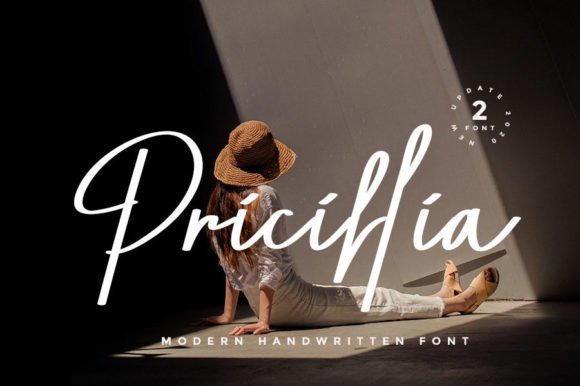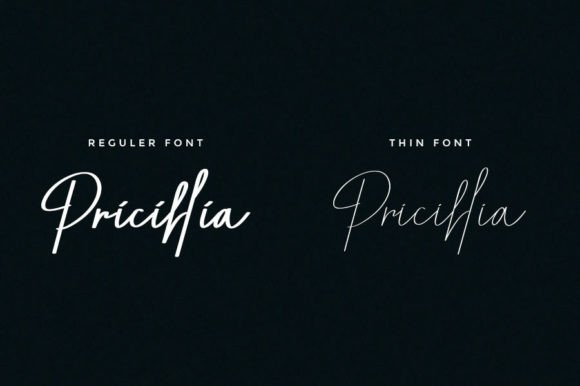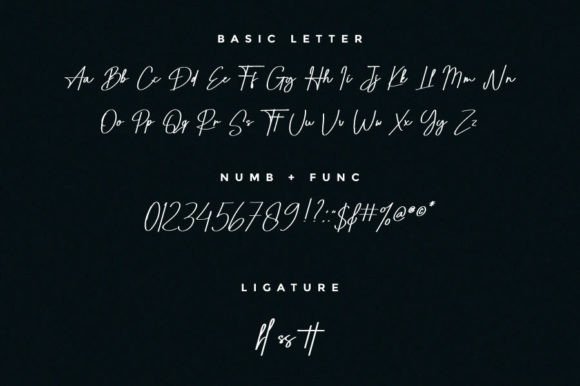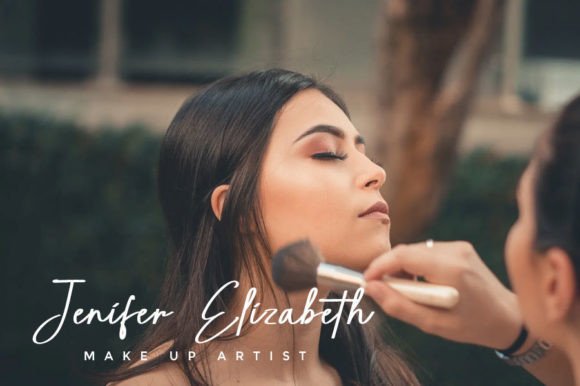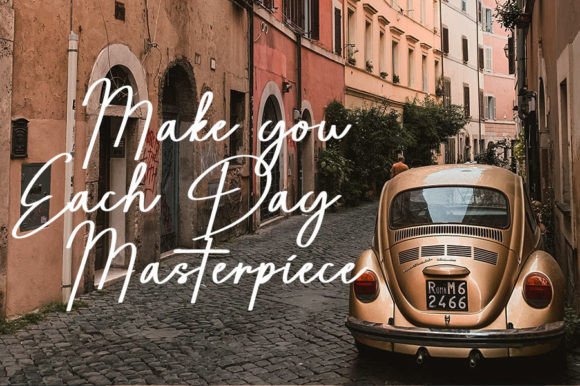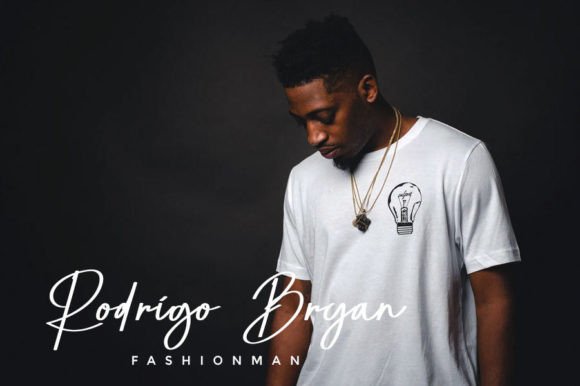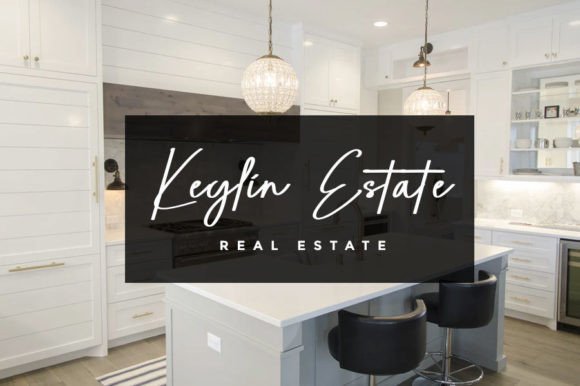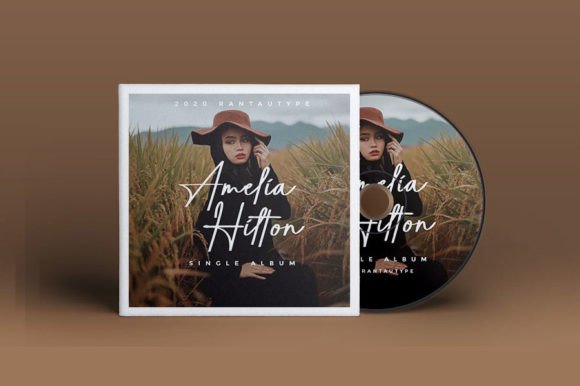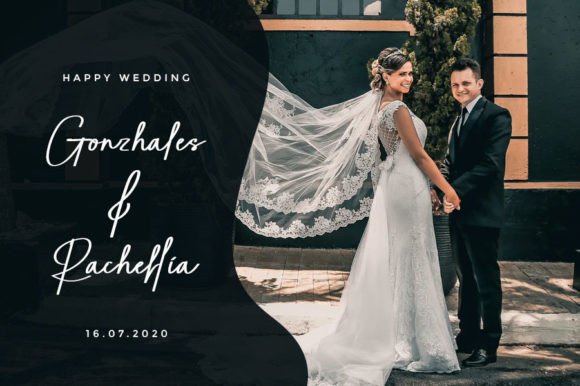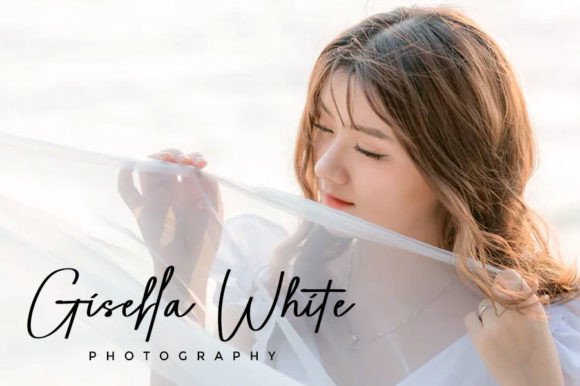
Pricillia Font
Add Elegant Femininity with Pricillia Font
The Pricillia font is a signature-style handwritten script that beautifully reflects elegance and sophistication, inspired by the grace of a classy woman. This font is perfect for professionals looking to add a refined and stylish touch to their creative projects.
Perfect for Watermarks, Logos, and Branding
The Pricillia font works wonderfully across a wide range of design projects including photography watermarks, signature logo designs, quotes, album covers, business cards, magazines, and personalized branding materials. Its smooth, flowing strokes create a polished and memorable look.
A Signature Script with Style and Readability
Each character in the Pricillia font is carefully crafted to balance elegance with readability. This makes it an excellent choice for logos, headlines, branding, and detailed text that requires both beauty and clarity.
Despite its decorative signature style, the Pricillia font maintains excellent readability at various sizes. Whether used for subtle watermarks or bold titles, it adds sophistication without compromising clarity, making it a versatile choice for many projects.
Elevate Your Work with Pricillia’s Classy Script
Typography defines the personality of your design, and Pricillia offers a stylish and elegant script to elevate your projects. If you want to create memorable and polished visuals, download the Pricillia font today and bring your creative ideas to life.